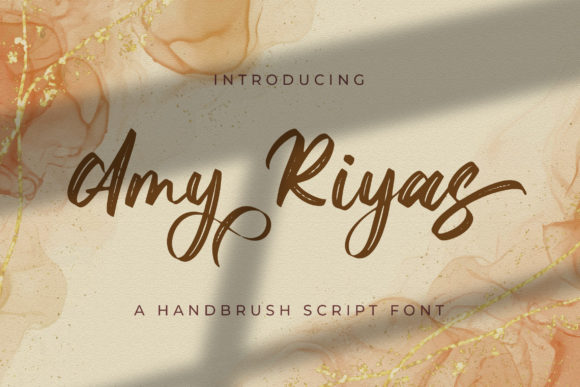
Behold, the Amy Riyas Font, an Enticing Handwritten Brush Script Font.
Journey into the world of Amy Riyas, a captivating handwritten brush script font, and discover the artistic touch it brings to your designs. StringLabs, the creative minds behind this font, have crafted a masterpiece that balances beauty and functionality, making it the perfect choice for a wide array of projects.
Step into the realm of creativity and let Amy Riyas ignite your imagination. Its gracefully flowing strokes and carefully crafted characters dance across the page, adding a personal touch to any design. Whether you're a seasoned designer or just starting out, Amy Riyas is your ideal companion, ready to transform your ideas into stunning realities.
With Amy Riyas at your disposal, endless possibilities await. Craft alluring logos that capture attention, design elegant invitations that leave a lasting impression, or create breathtaking social media graphics that captivate your audience. Unleash your creativity and let Amy Riyas guide you towards a world of visual brilliance.
Don't settle for ordinary fonts that blend into the background. Embrace the uniqueness of Amy Riyas and watch your designs flourish. Its distinctive style adds a touch of elegance and sophistication to any project, making it stand out from the crowd. Stand tall with confidence, knowing that your designs are adorned with the captivating charm of Amy Riyas.